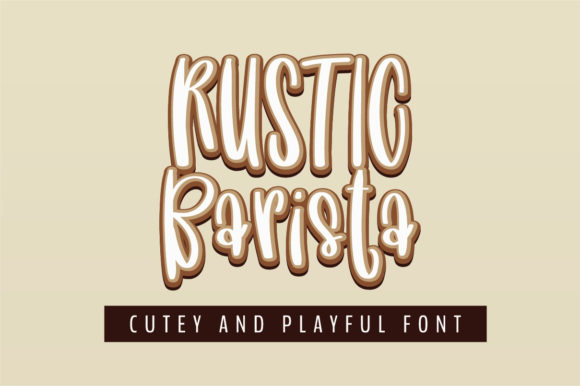
Immerse yourself in the world of Rustic Barista, a script font that oozes charm and elegance. Inspired by the timeless art of calligraphy, Rustic Barista is a visual masterpiece adorned with smooth lines, captivating glyphs, and stunning alternates. This font exudes a unique personality that effortlessly elevates your designs to new heights of sophistication.
Unleash the power of Rustic Barista and witness the transformation of your creative projects. Whether you're crafting logos that demand attention, crafting invitations that exude romance, or designing labels that radiate elegance, this font will effortlessly elevate your work to the next level. Rustic Barista is the perfect choice for those seeking a touch of timeless grace and understated luxury.
Indulge in the versatility of Rustic Barista and let your imagination run wild. Its varying baseline and meticulously crafted details make it an ideal font for a multitude of applications. From branding projects that yearn for a touch of authenticity to wedding designs that crave a sprinkle of charm, Rustic Barista effortlessly adapts to your creative vision. Experience the joy of seamlessly blending your unique style with this font's inherent allure.
With Rustic Barista at your fingertips, you possess the power to evoke emotions and create lasting impressions. Its ability to add a touch of elegance and charm to any design project is simply mesmerizing. Embrace the beauty of Rustic Barista and embark on a creative journey unlike any other. Prepare to be captivated by its timeless charm, undeniable elegance, and versatility that knows no bounds.